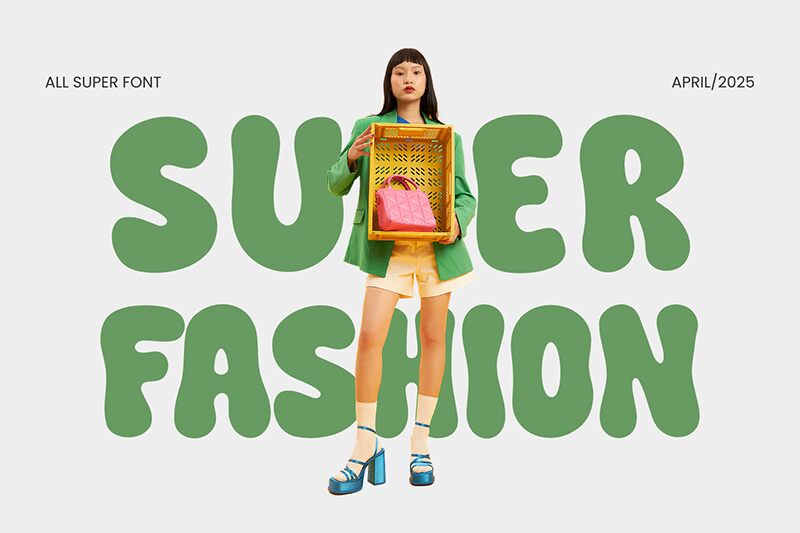
Super Fashion
Super Fashion font by fsuarez913 is a groovy display typeface that captures a bubbly, retro-inspired spirit. Its organic design features casual aesthetics and bold, rounded forms, making it an eye-catching option for designers. The letters flow harmoniously to create unforgettable visual experiences from signages to printed media and the web.
Catchy website headers, social media posts and stories, greeting cards, posters and flyers can all benefit from the font’s organic style. A free display font for branding projects on logos & labels as well as labels of products with limited edition packaging designs.